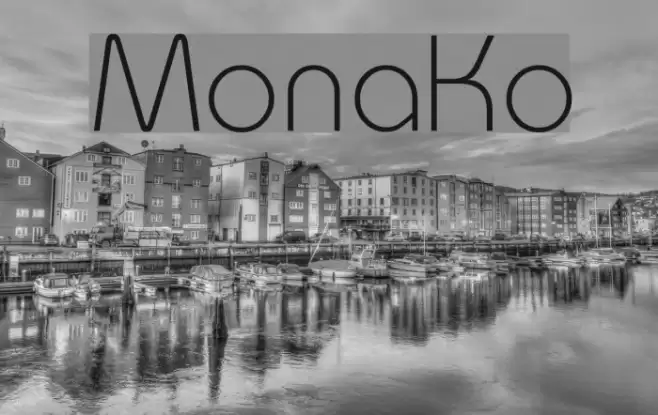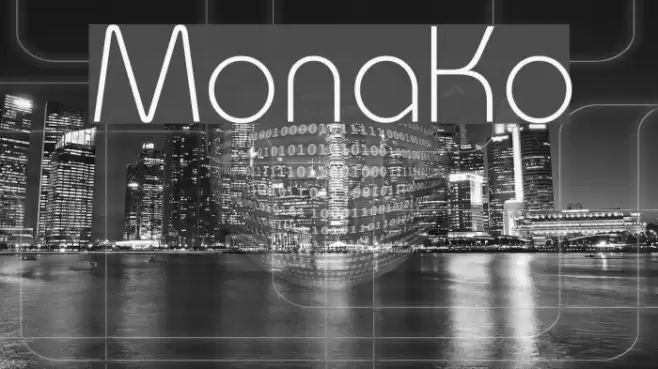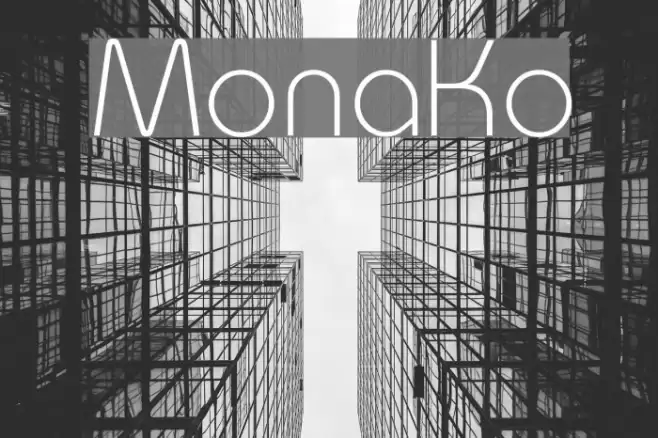
MonaKo Font
MonaKo Description
This font features a clean and modern design with geometric shapes and uniform stroke widths. The characters are constructed with a minimalist approach, emphasizing clarity and readability. The uppercase letters are tall and slightly condensed, while the lowercase letters maintain a consistent height, contributing to a harmonious appearance. The numerals are straightforward and align well with the overall style, making them easily legible. Special characters are designed to match the sleek aesthetic, ensuring a cohesive look across all text elements.
A modern, geometric sans-serif font with clean lines and uniform strokes from Uncategorized fonts.
- Proposed Projects: Ideal for branding, digital interfaces, and modern print designs due to its clean and professional appearance.